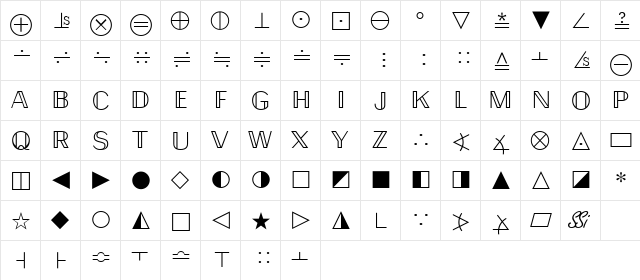
Quanta Pi Four SSi Regular Font Preview
Quanta Pi Four SSi Regular
Quanta Pi Four SSi Regular Font Details
Design Context for Quanta Pi Four SSi Typeface
Quanta Pi Four SSi is a composed and adaptable typeface that performs quietly and consistently across a wide range of design contexts.